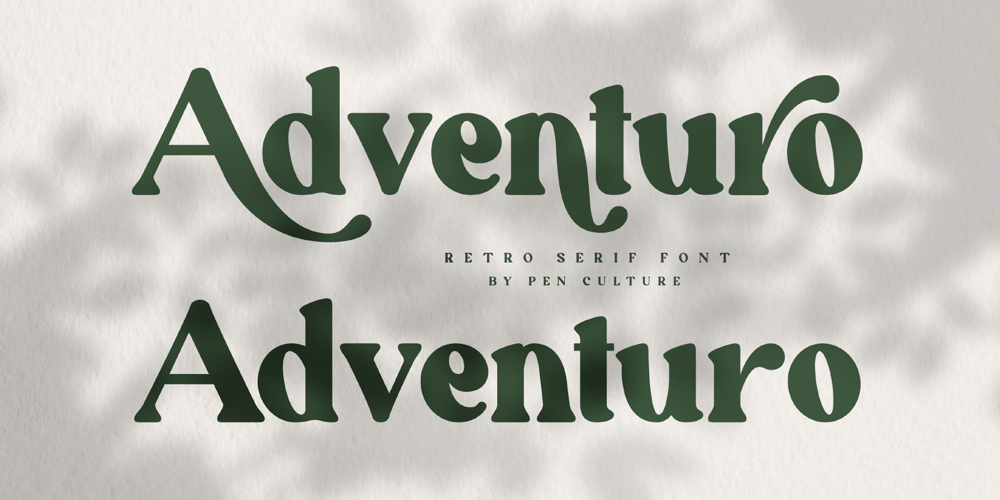
Adventuro Font Family was designed by Revo Farsiky and published by Pen Culture. Adventuro contains 1 styles and family package options. Proudly present ”Adventuro – Retro Serif Font”Adventuro is retro serif font. this font has a retro look also has a modern feel. This font has more than 20 alternates that will help you in project design such as branding, logos, packaging, magazine imagery, posters and many more.Feature and what will you get: Uppercase and lowercase Stylistic alternate Punctuation Multilingual Support I really hope you enjoy it – please do let me know what you think, comments & likes are always hugely welcomed and appreciated. More importantly, please don’t hesitate to drop me a message if you have any issues or queries.Thank you